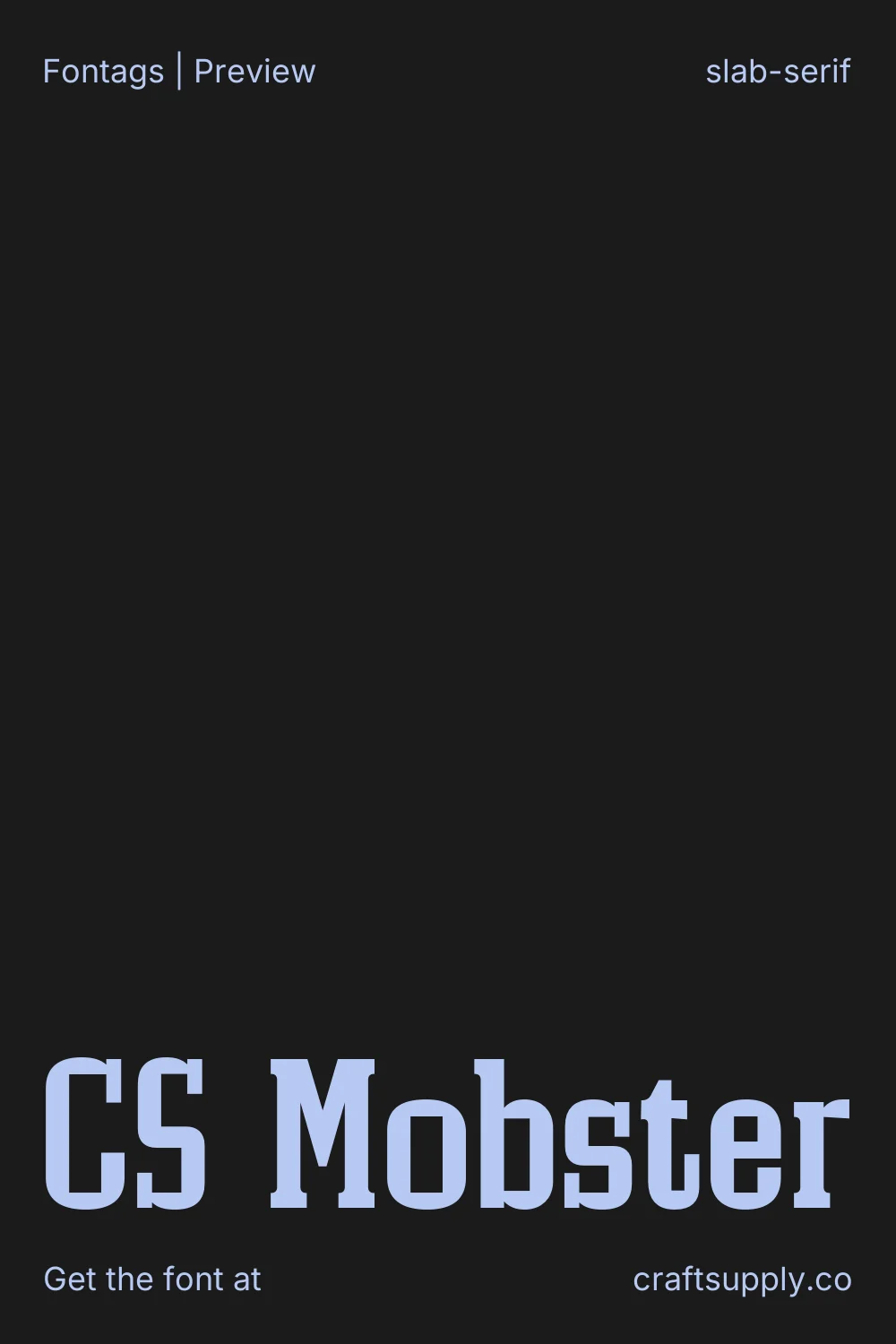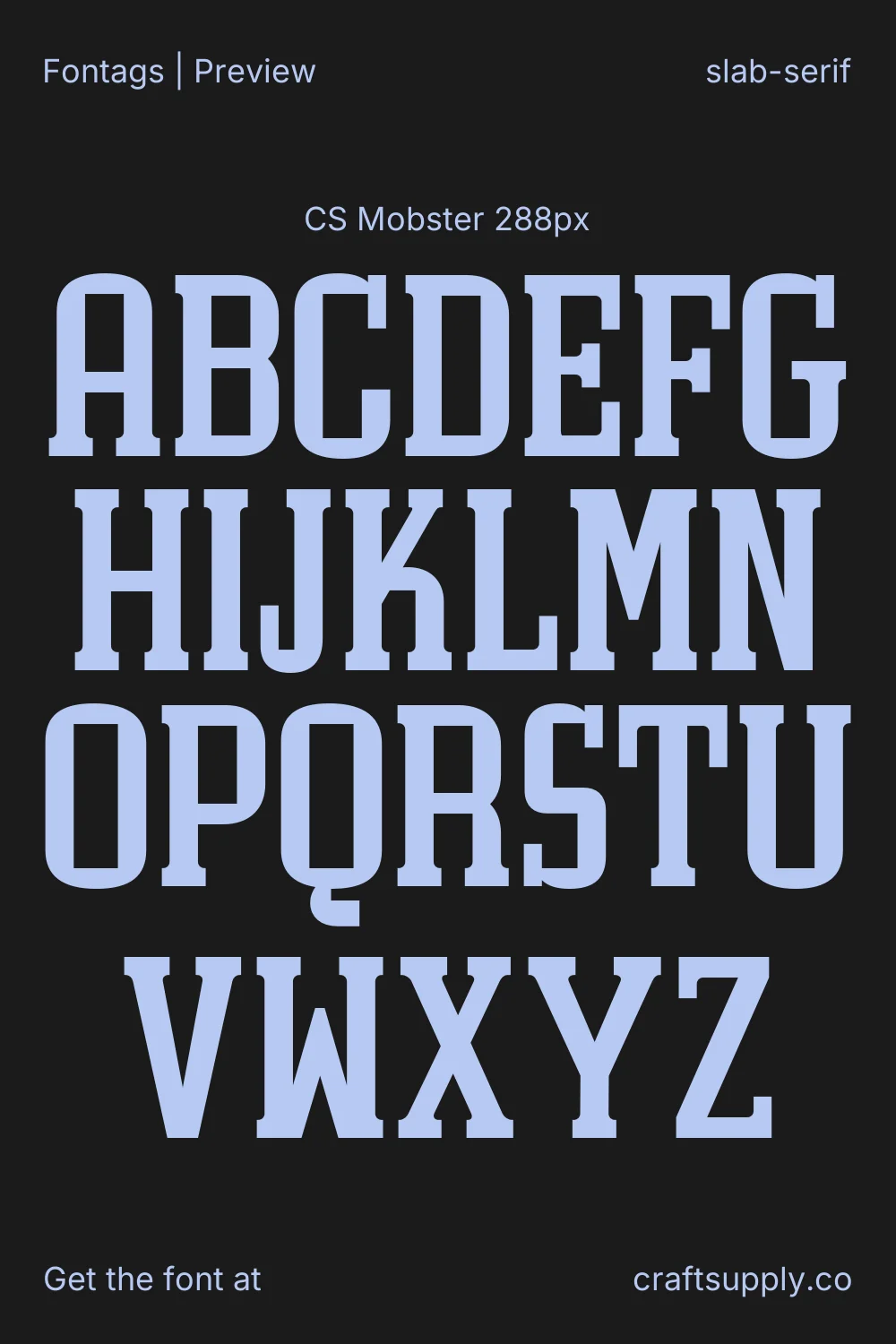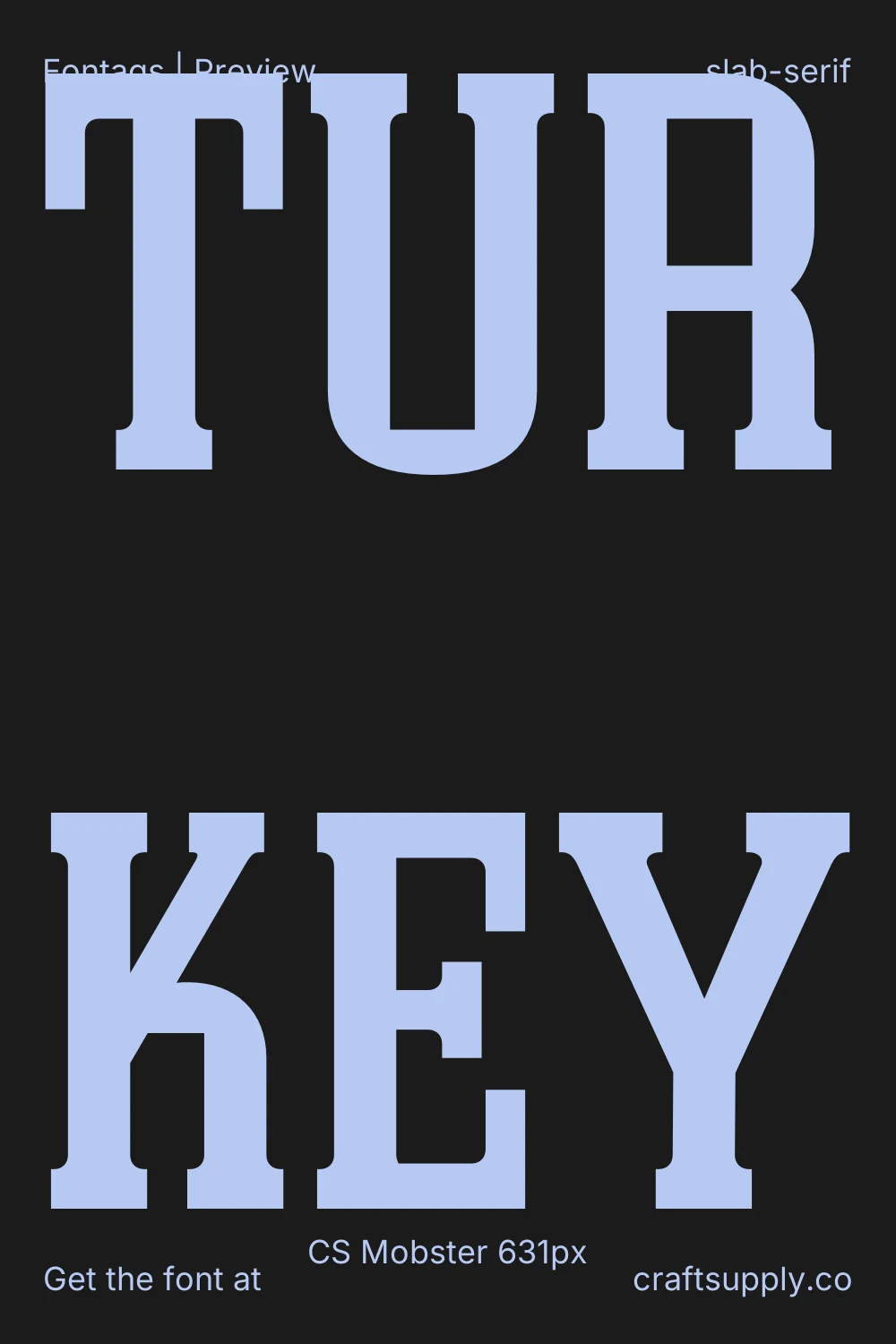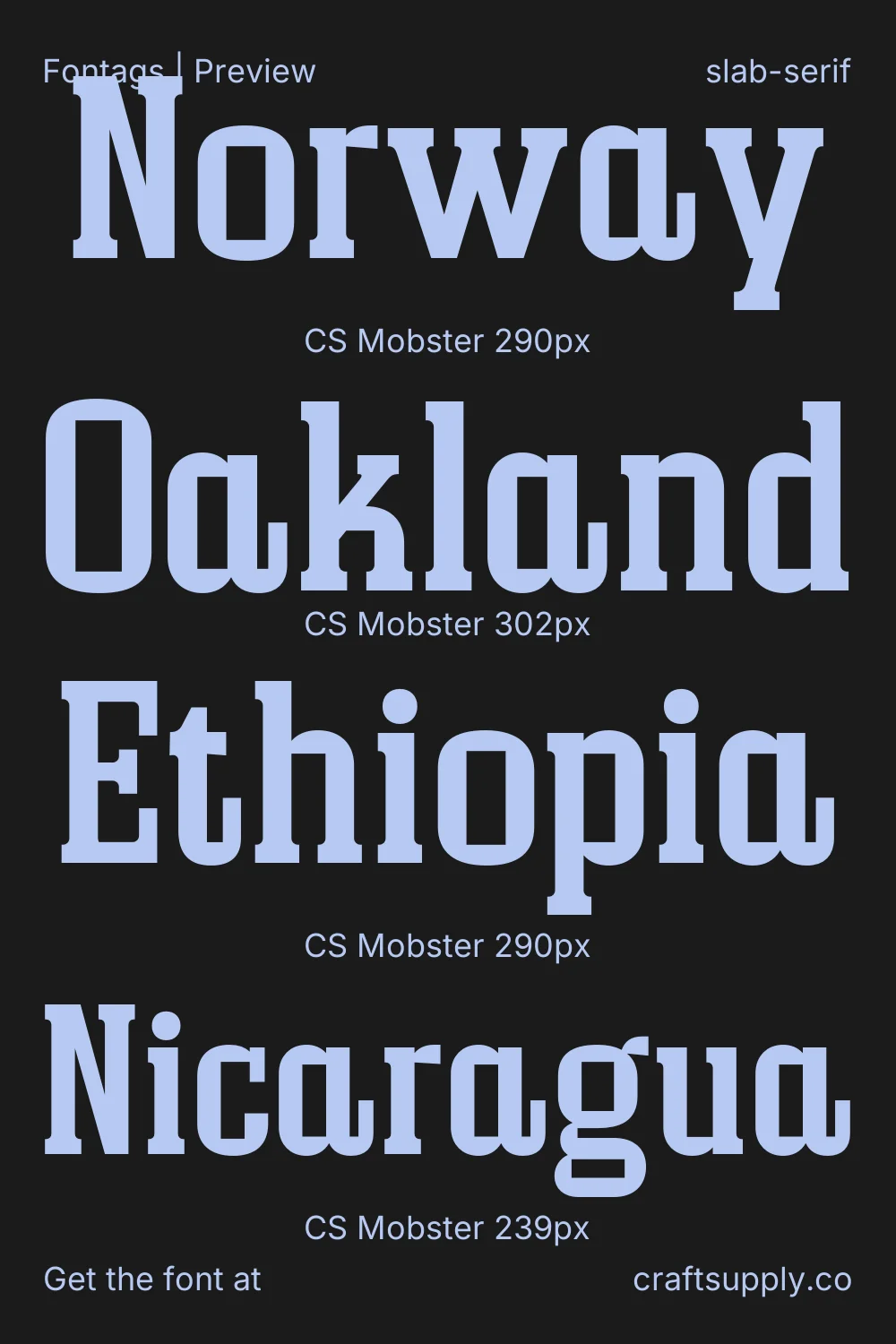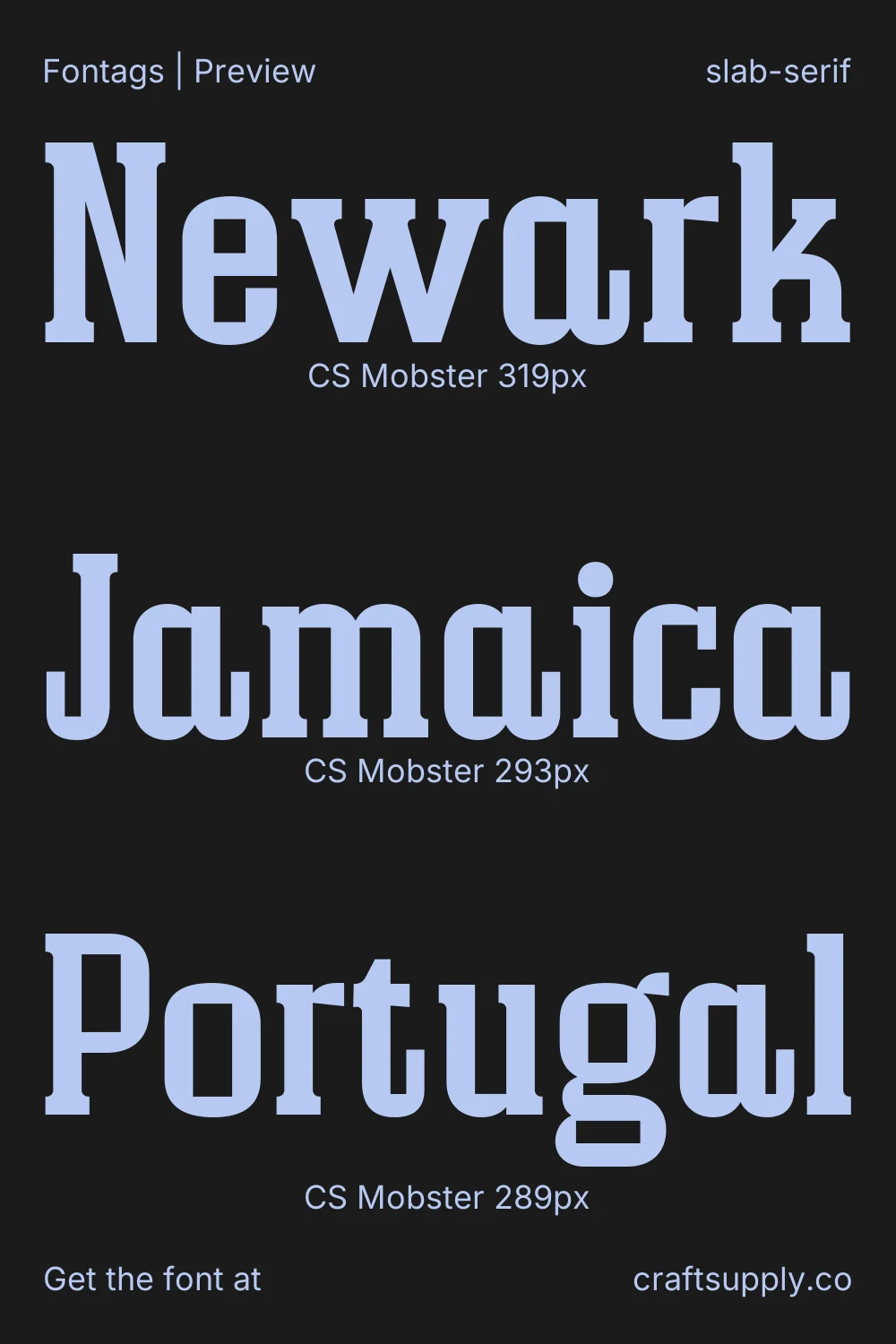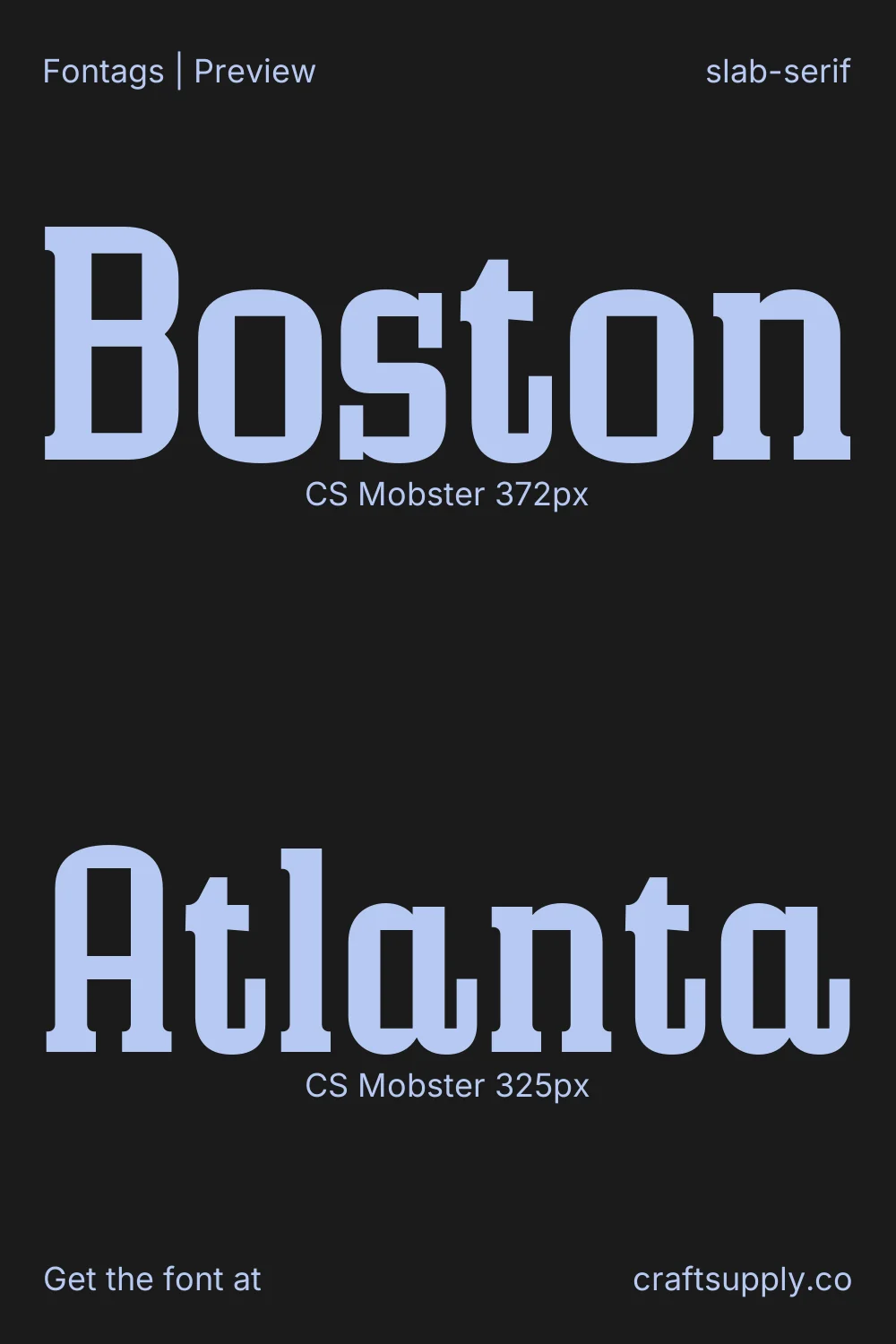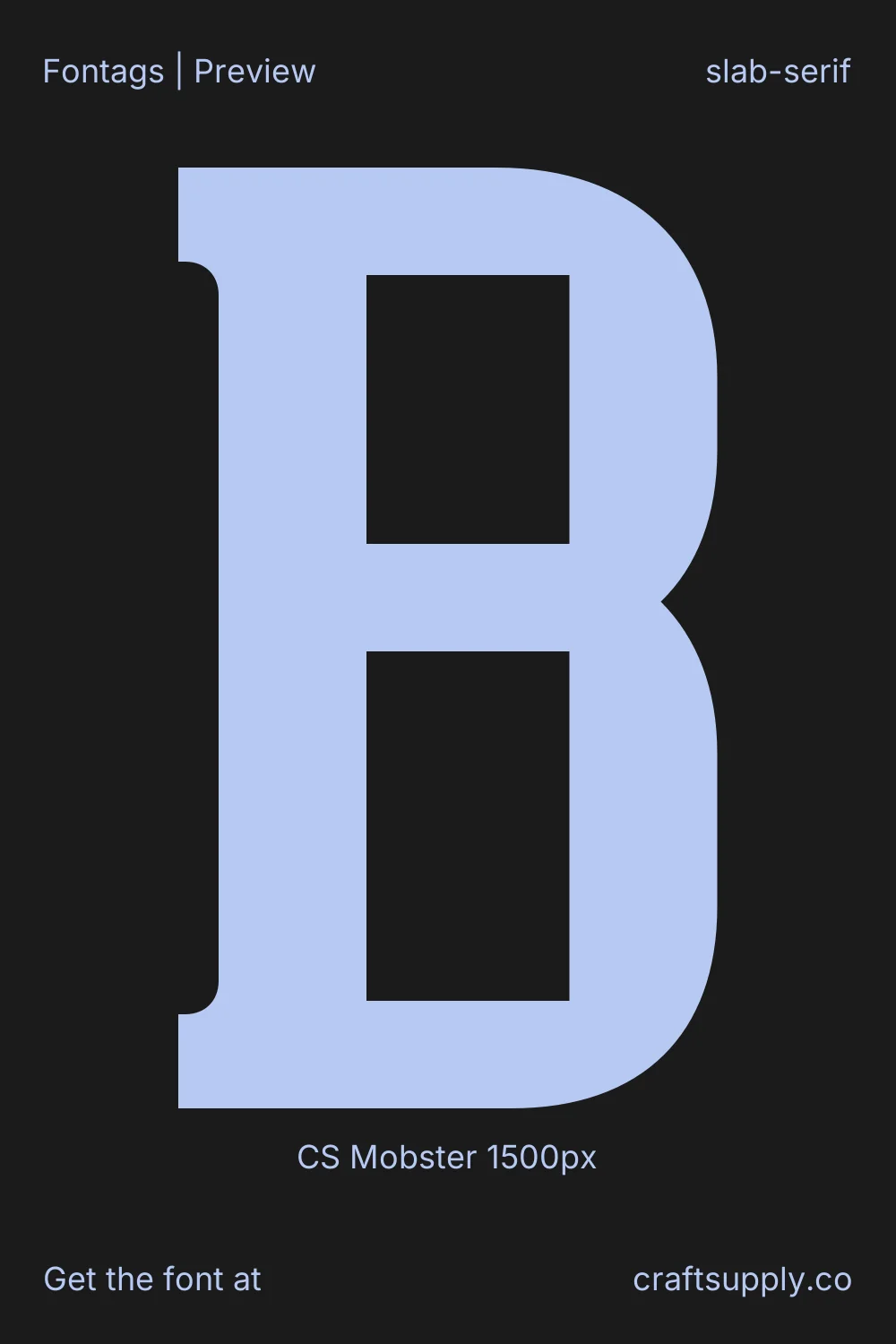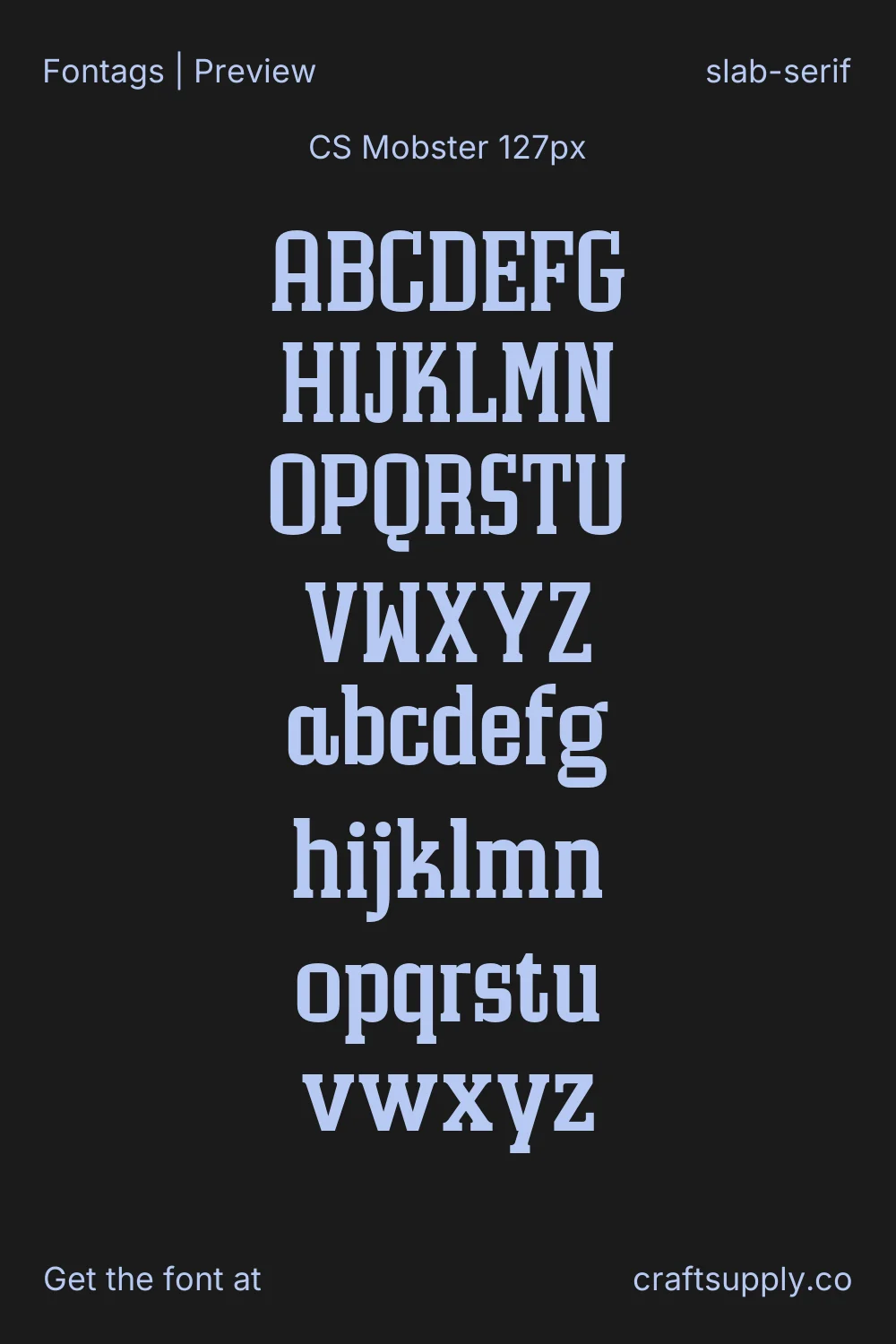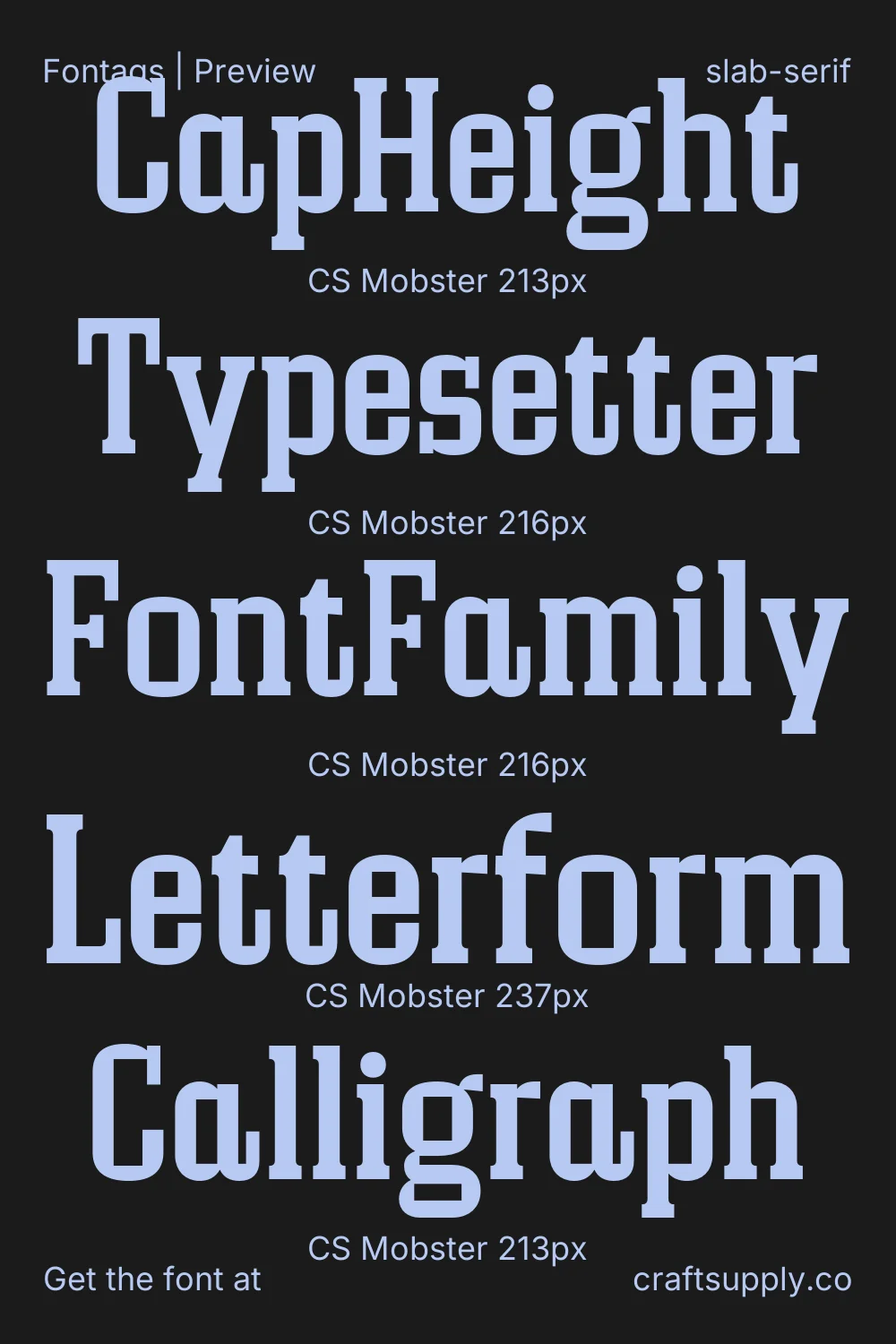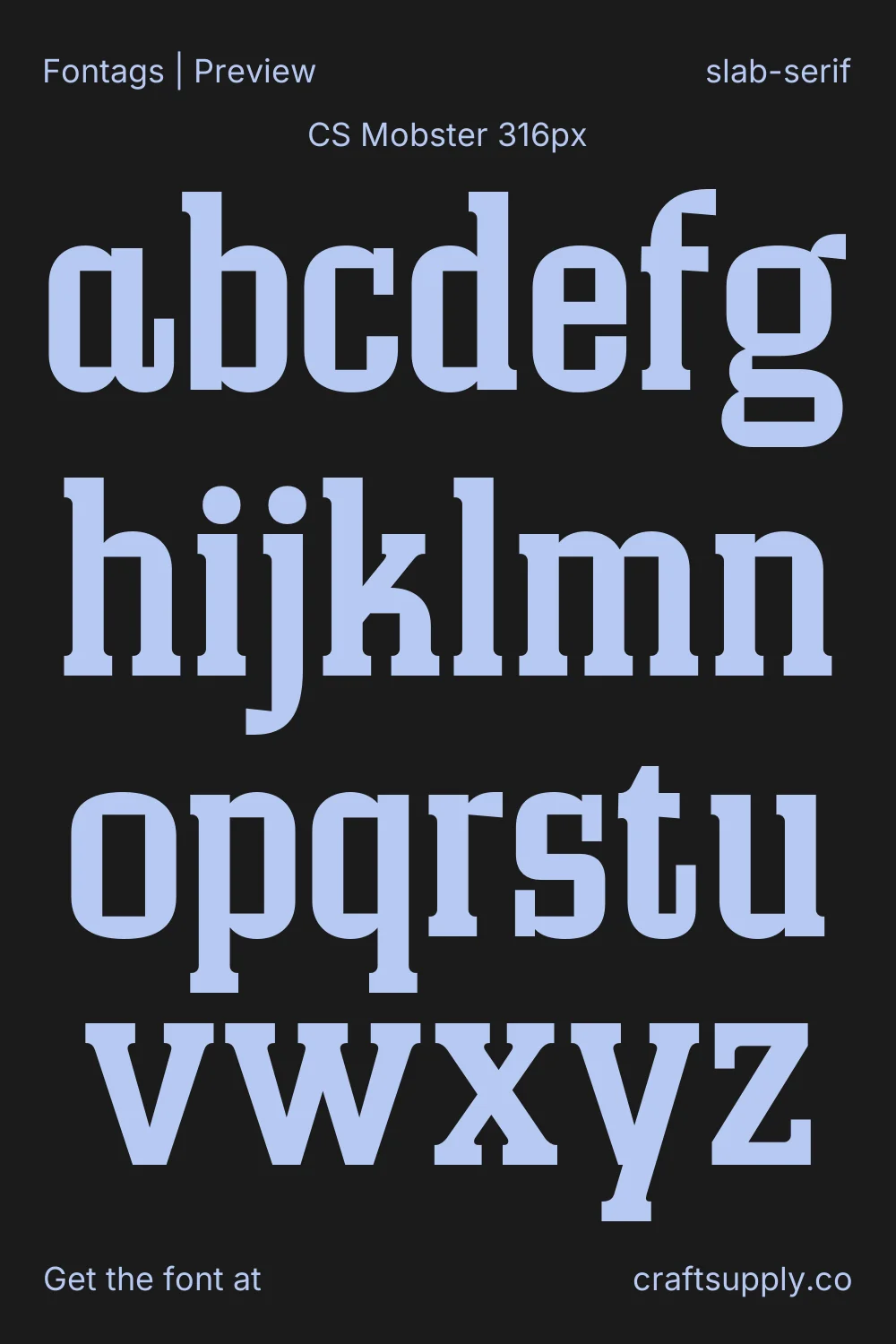
CS Mobster
A classic slab serif display font inspired by mid-19th century typography, featuring generous slab serifs and a confident, grounded appearance. The balanced letterforms deliver strength and elegance, making it ideal for headlines, logos, packaging, and branding that demands authority and timeless appeal.